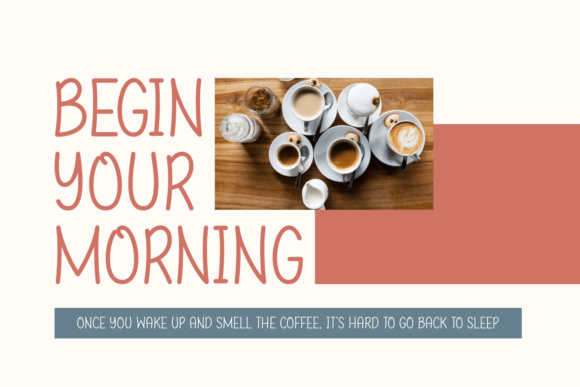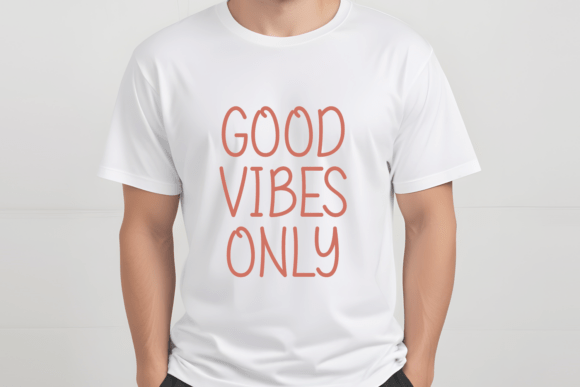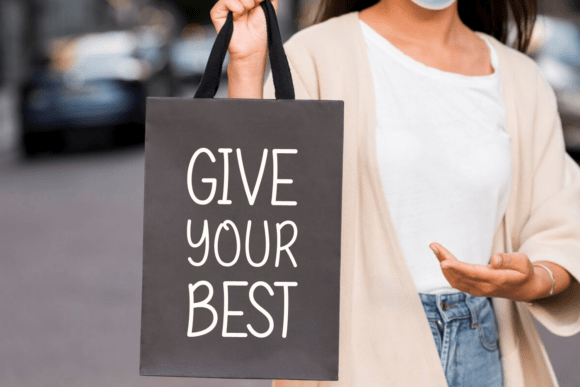
Introduction to Raising Spirits Font
Raising Spirits is sweet, casual and relaxed handwritten font that are perfect for branding materials, t-shirts, logos, posters, Notes, quotes, and even informal invitations.
Add it confidently to your fresh creations and you will love the results .
Key Features of Raising Spirits Font
Why Choose Raising Spirits Font?
Raising Spirits Font offers exceptional quality and versatility, making it a valuable addition to your design toolkit. Whether you’re creating for personal projects or commercial use, Raising Spirits Font delivers professional results.